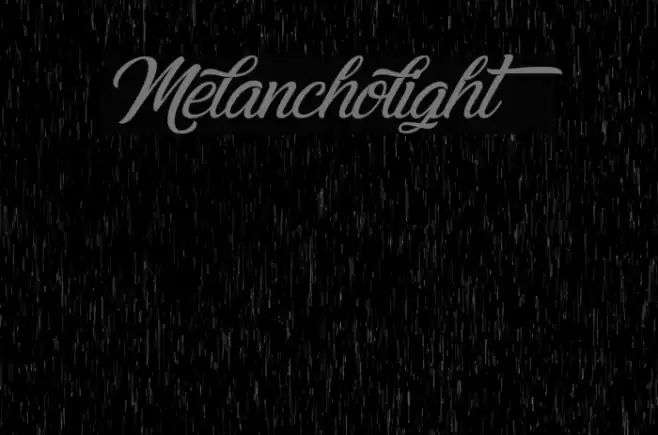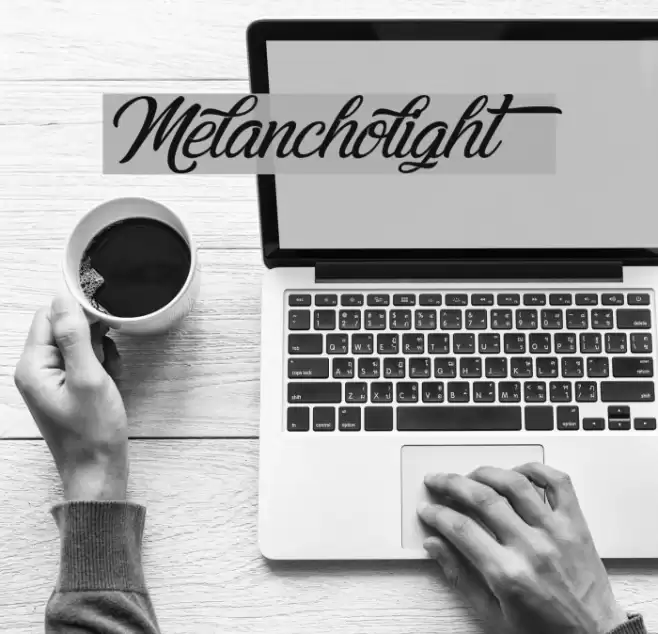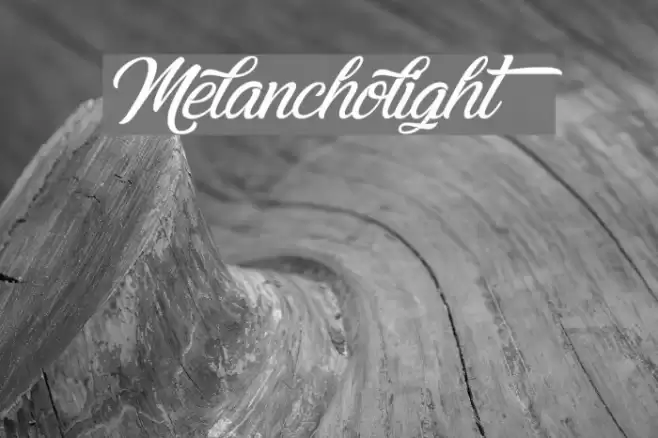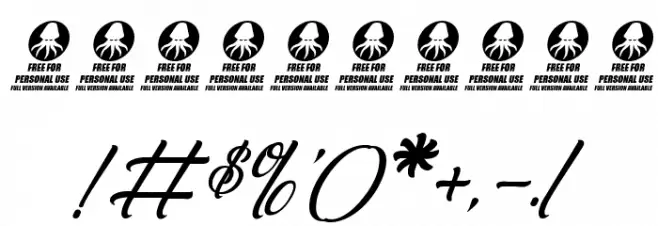
Melancholight Font
Melancholight Description
This font features an elegant and flowing script style, characterized by its smooth, cursive letterforms that exude a sense of sophistication and grace. The uppercase letters are ornate, with sweeping curves and flourishes that add a decorative touch. The lowercase letters maintain a consistent flow, enhancing readability while retaining the font's stylish nature. The numerals and special characters are designed to complement the overall aesthetic, ensuring a cohesive look across all text. This font is perfect for projects that require a touch of elegance and personality.
An elegant, flowing script font with ornate, cursive letterforms from Uncategorized fonts.